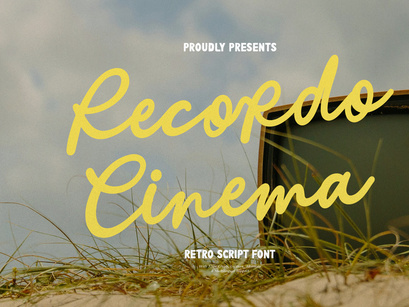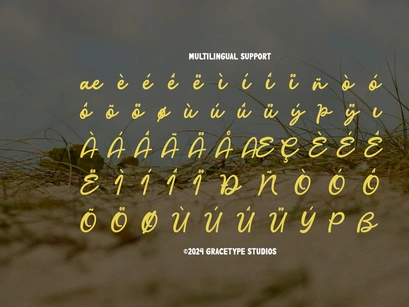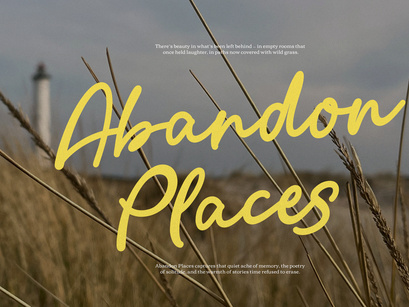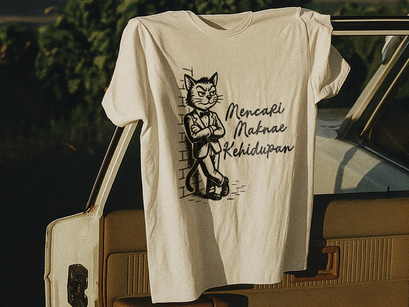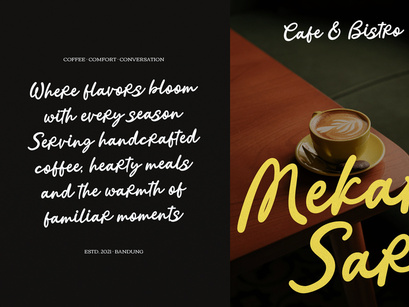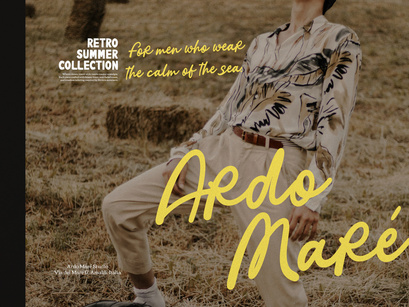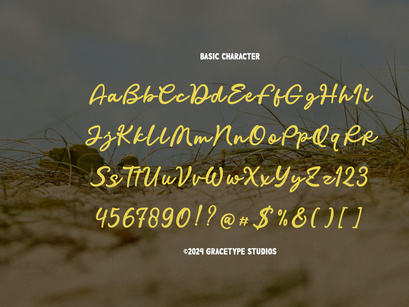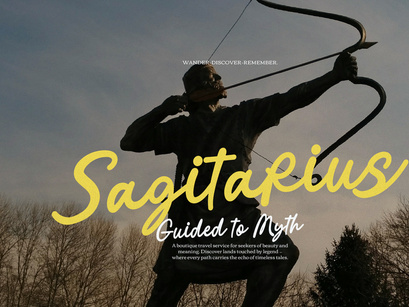
Recordo Cinema | Retro Script Font, from Gracetypestudio, suitable for any projects such as: logos, branding projects, homeware designs, product packaging, mugs, quotes, posters, shopping bags, t-shirts, book covers, name card, invitation cards, greeting cards, label, photography, watermark, special events, and all your other lovely projects that need a Retro Script taste.